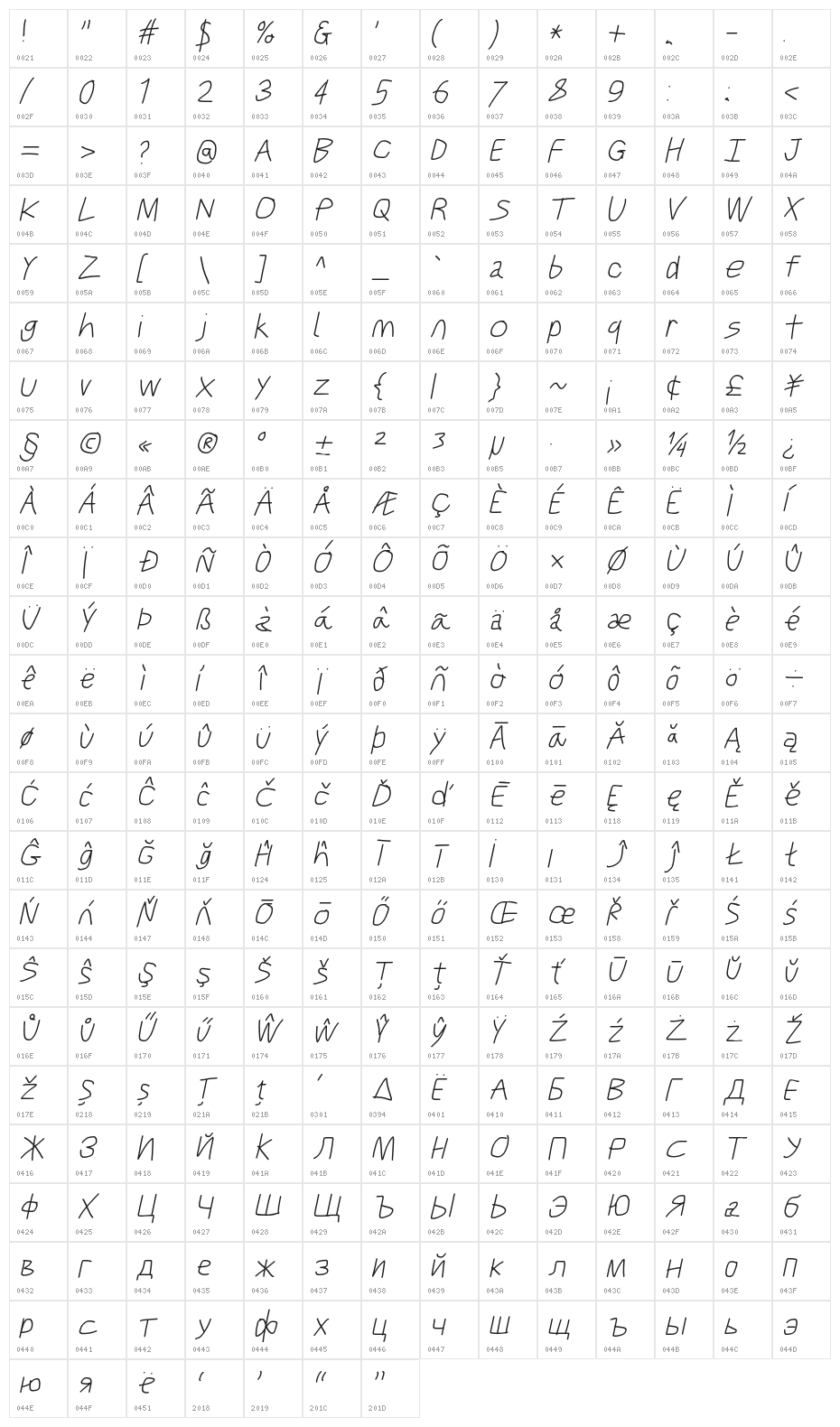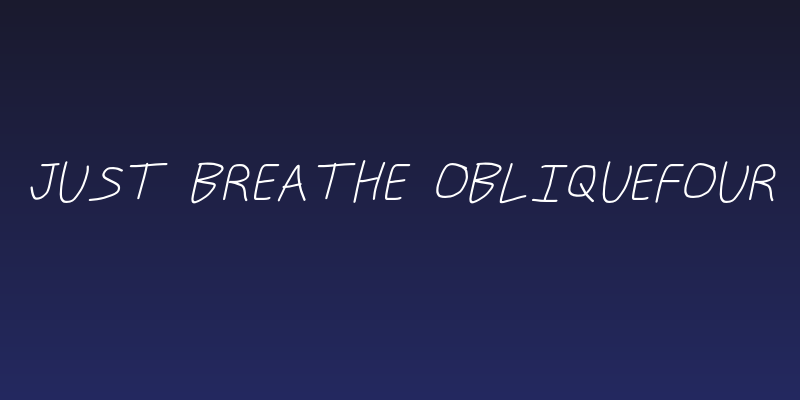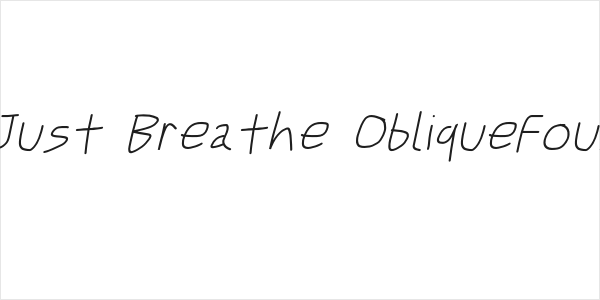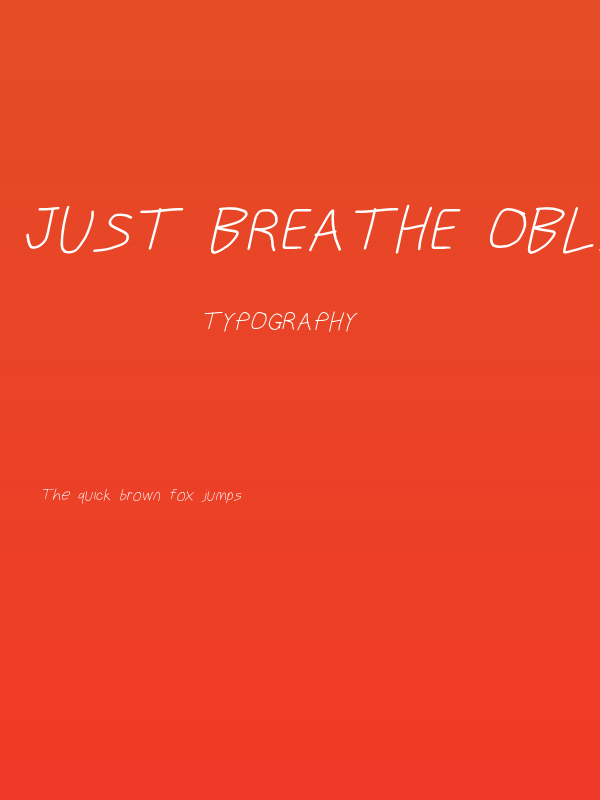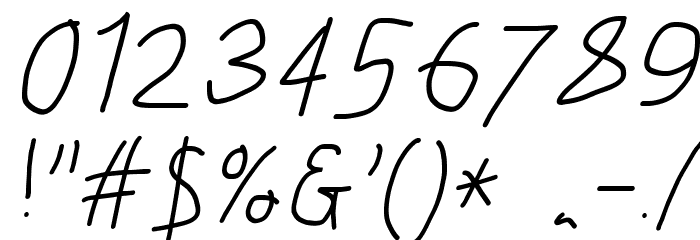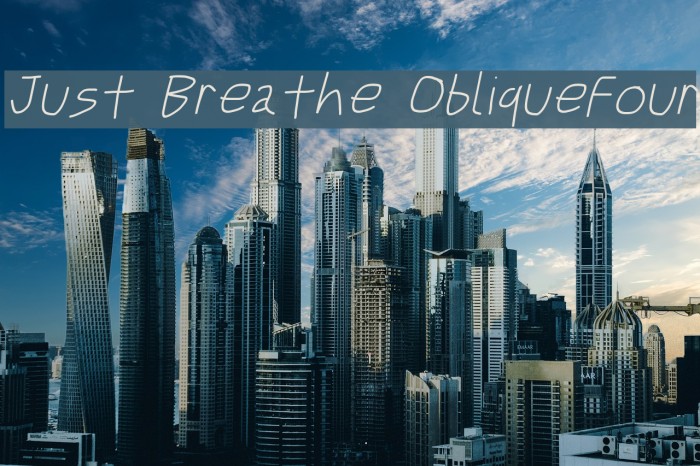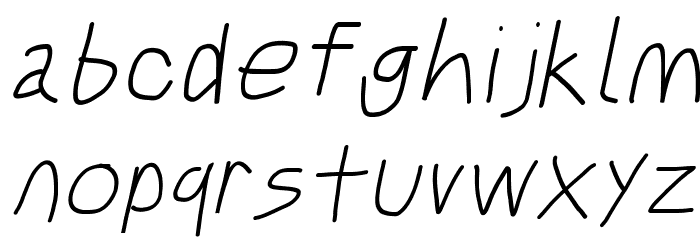
Just Breathe ObliqueFour Font
Just Breathe ObliqueFour Description
This font features a handwritten, casual style with a slight slant, giving it an informal and approachable appearance. The characters are crafted with smooth, flowing lines that mimic natural handwriting. Each letter maintains a consistent stroke width, contributing to a uniform look across the alphabet. The uppercase and lowercase letters are well-balanced, with a playful yet legible design. Numbers and special characters follow the same style, ensuring cohesion throughout. The overall aesthetic is relaxed and friendly, making it suitable for projects that require a personal touch.
| Use Case | Headlines, Informal text, Personal projects |
| Proposed Projects | Ideal for personal invitations, greeting cards, casual branding, and social media graphics. |